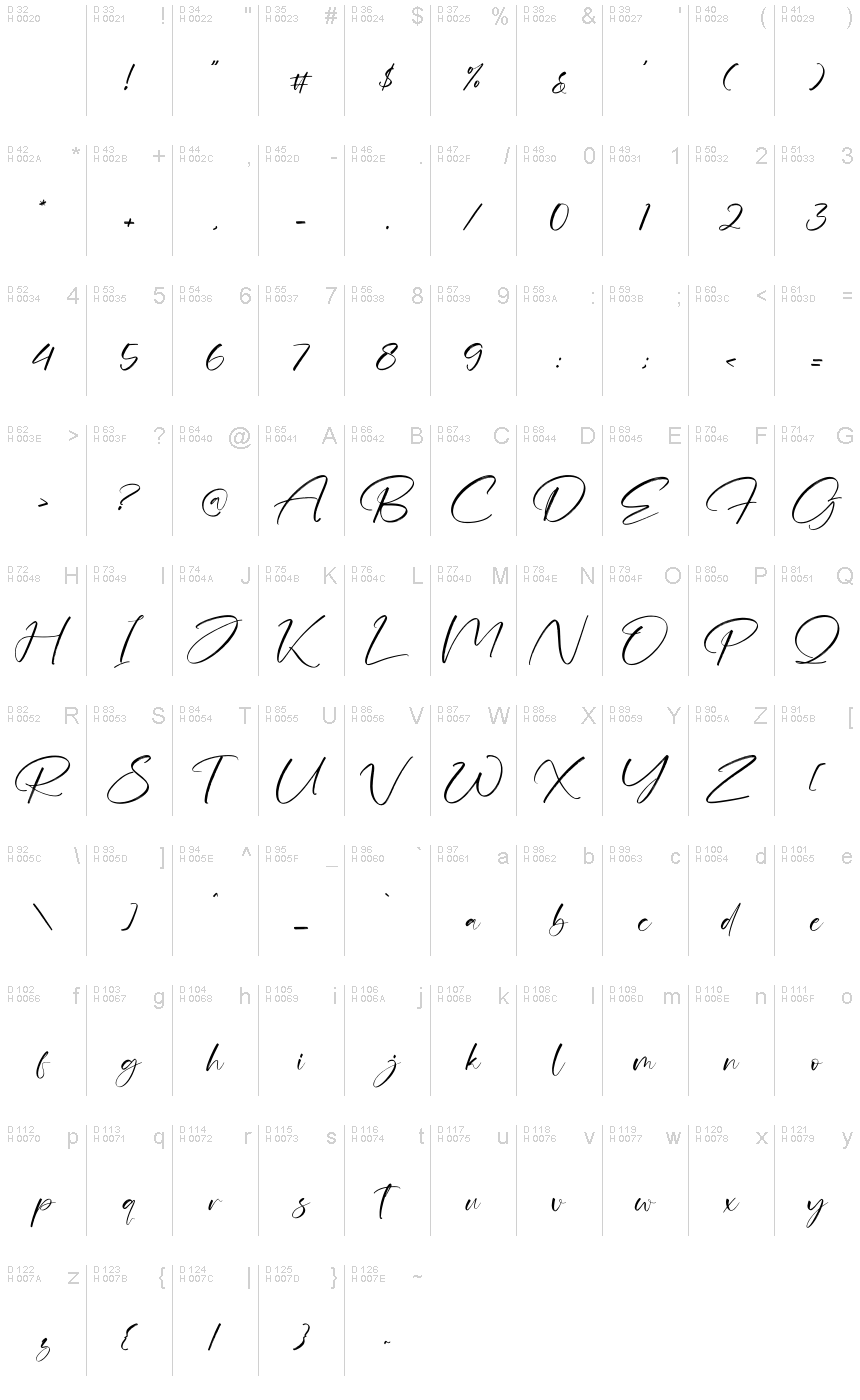
Gerlyonz Jimakes, a stunning handwritten font crafted by Letterena Studios, captivates with its effortless elegance and fluid strokes. This light-weight typeface exudes a soft, organic touch, evoking a sense of warmth and approachability. The distinctive, interconnected letterforms flow seamlessly, lending a harmonious rhythm to any design. Gerlyonz Jimakes' captivating beauty shines through its delicate, yet confident appearance, making it a versatile choice for a wide range of creative projects.
The expressive nature of Gerlyonz Jimakes lends itself beautifully to branding, stationery, and editorial designs, where its naturalistic charm can elevate the overall aesthetic. Its adaptability also makes it an excellent selection for wedding invitations, greeting cards, and social media content, where the font's inherent warmth can create a personalized, handcrafted feel. Whether you're crafting a modern logo, designing a rustic packaging label, or curating a visually captivating blog post, Gerlyonz Jimakes stands out as a compelling typographic choice.
Gerlyonz Jimakes